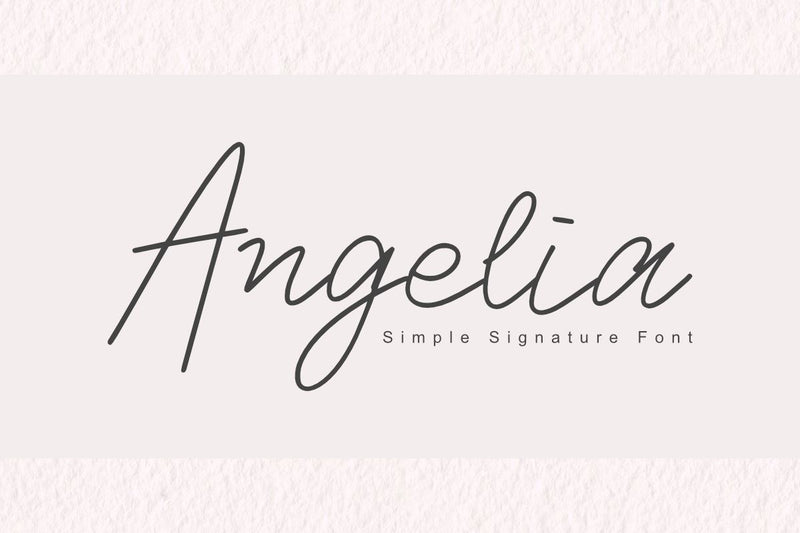
Angelia - Handwritten Signature Font
Angelia is a handwritten Signature font. This font is perfect for logos, branding, wedding decor, farmhouse designs, cricut projects, svg files, stickers, mugs and more!